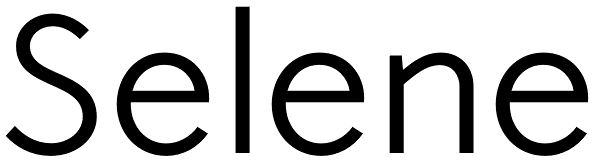
Selene
Selene is a sans-serif font family designed by Leonardo Di Lena in 2012-13. The font is based on geometric forms with as few improving legibility optical corrections as possible. If you need a minimalist font, technical but friendly and elegant...